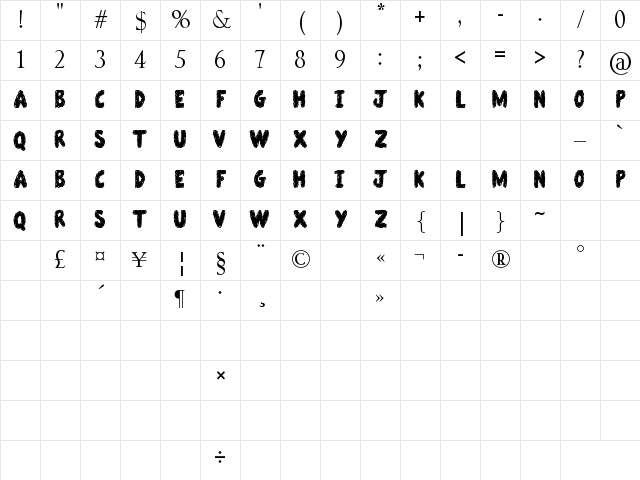
Slimeball Regular
Complete Slimeball Regular glyph index. Displaying only characters natively supported by Slimeball Regular font.
Design Context for Slimeball
Slimeball is a composed and adaptable typeface that performs quietly and consistently across a wide range of design contexts.